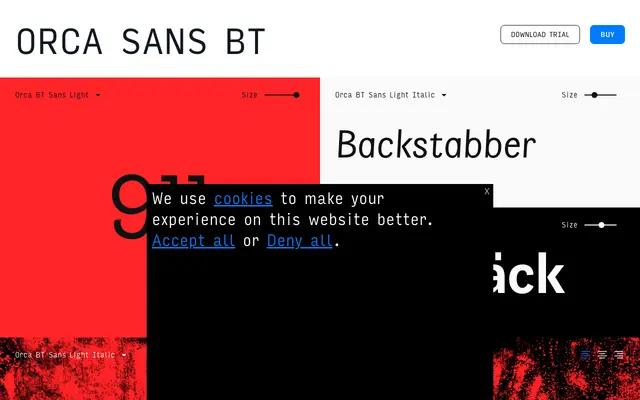
Orca Sans BT
A workaday grotesque sans from Bastarda with six weights, matching italics and broad Latin Extended coverage.
Six weights running from Light to Bold, each with a corresponding italic, give the family enough range for editorial hierarchies and interface work. The character set covers Latin Extended, including Baltic, Central European and Scandinavian diacritics. Nothing in the specimen points to a distinctive voice, but the construction is clean and the coverage practical.
A clean, upright sans-serif with a range of weights from Light to Bold and matching italics, fitting the grotesque category with no obvious geometric or humanist inflection evident from the specimen.